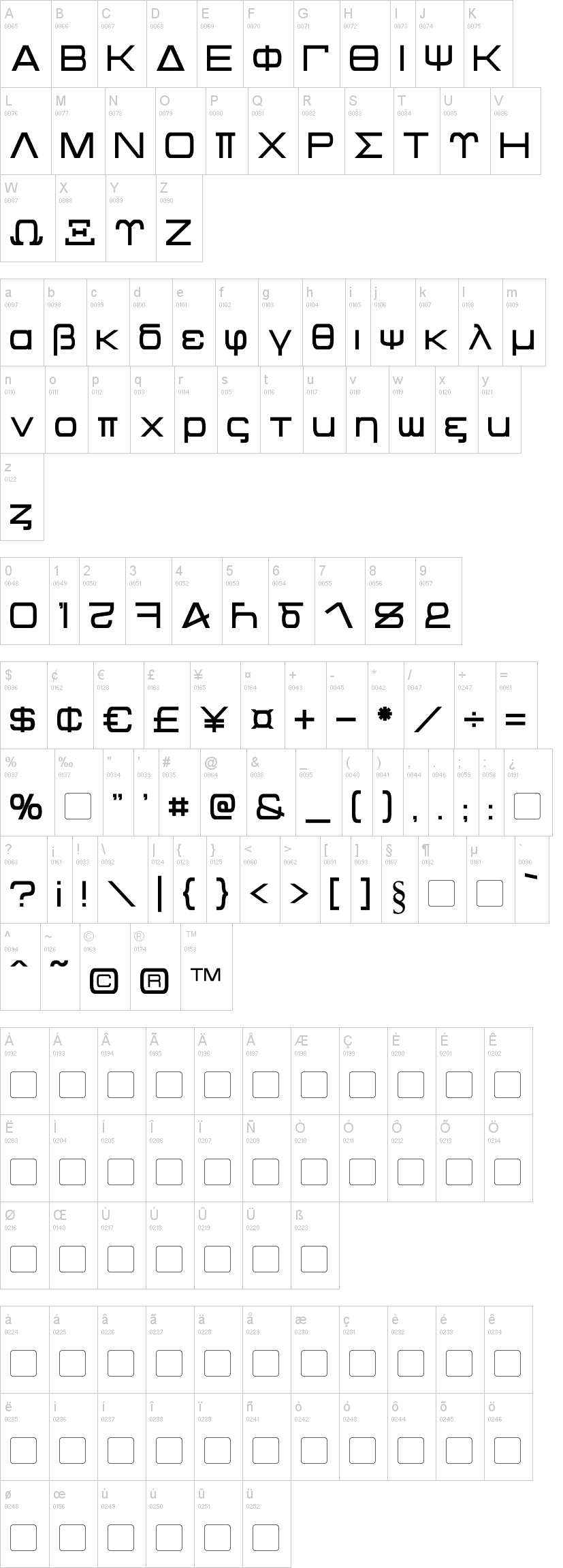
Kentaurus Italic.otfKentaurus Bold.otfKentaurus Bold Italic.otfNote of the authorKentaurus is a tech manual style version of the classic Greek lettering, based on the Tech Manuals Kentaurus colony writing. It is designed as a letter-replacement code-font, with letter glyphs lined up to their closest English equivalents. Includes regular, bold, italic, and bold italic versions.